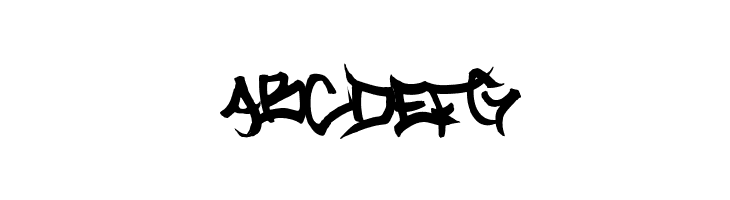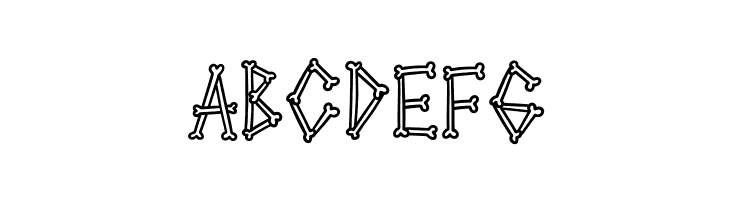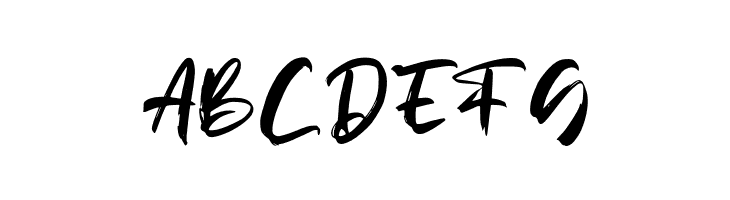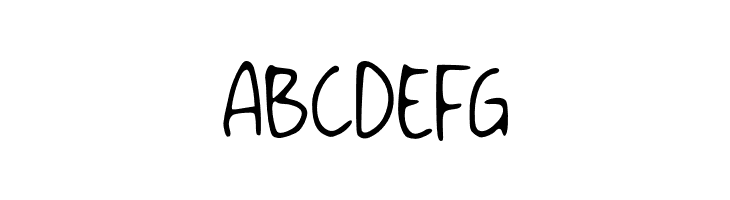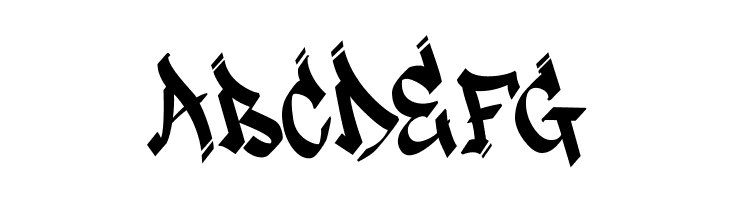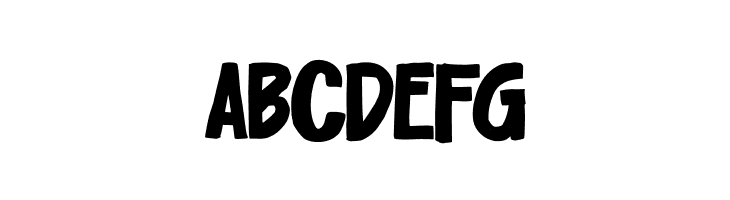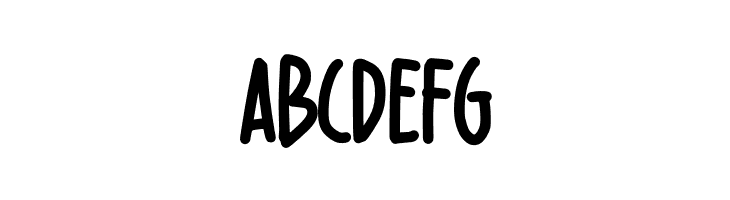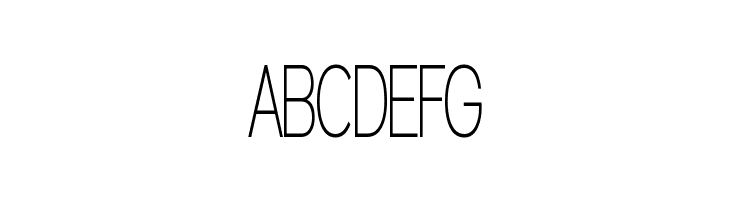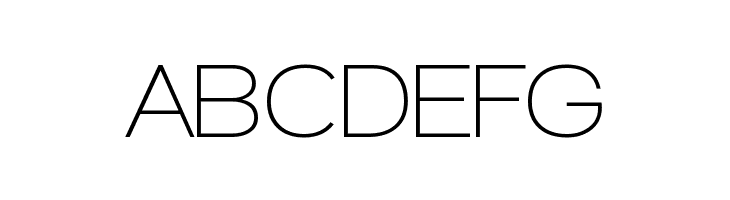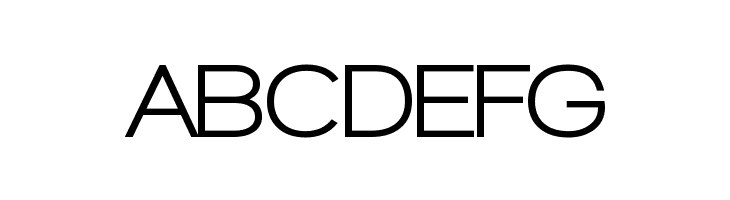
A modern, rounded sans-serif font with smooth curves and consistent strokes.
A geometric sans-serif font with a modern, clean design and uniform stroke width.
A sleek, modern semi-bold font with a reverse oblique style.
A modern, ultra-bold font with clean lines and geometric shapes.
A modern, ultra-bold, reverse oblique font with geometric shapes and smooth curves.
A sleek, ultra-condensed font with thin, elongated letterforms and minimal stroke width.
A modern, ultra-condensed bold font with a sleek and minimalist style.
A sleek, ultra-condensed sans-serif font with a modern, minimalistic design.
A sleek, ultra-expanded font with a modern and minimalist design.
A modern, ultra-expanded bold font with clean lines and smooth curves.
A sleek, ultra-expanded semi-bold font with a modern, minimalist aesthetic.
A bold, playful, hand-drawn font with rounded edges and a casual feel.
A bold, angular font with a futuristic, mechanical style.
A playful, bone-themed decorative font ideal for spooky designs.
A bold serif font with sharp serifs and a modern classic appeal.
A decorative font with intricate, maze-like geometric patterns.
A bold, graffiti-inspired font with sharp, angular lines and dynamic energy.
A playful, handwritten font with a bold and friendly style.
A playful, handwritten-style font with consistent stroke thickness and rounded edges.
A bold, graffiti-inspired font with sharp, angular lines and a rebellious aesthetic.
An elegant script font with flowing, cursive letters and high contrast strokes.
A cursive, handwritten-style font with smooth, connected characters.
A thin, handwritten font with a casual and modern style.
A decorative and flowing script font with elegant curves and artistic flair.
A rugged, distressed font with an ink-splatter appearance.
A playful, casual handwritten font with uneven strokes and a dynamic feel.
A playful, handwritten script font with fluid, connected letters.
A bold, expressive handwritten font with dynamic brush strokes.
An elegant, flowing script font with a classic yet modern appeal.
A bold, playful font with a hand-drawn, informal style.
A bold, angular font with a futuristic, three-dimensional style.
A bold, italicized 3D font with a futuristic and dynamic style.